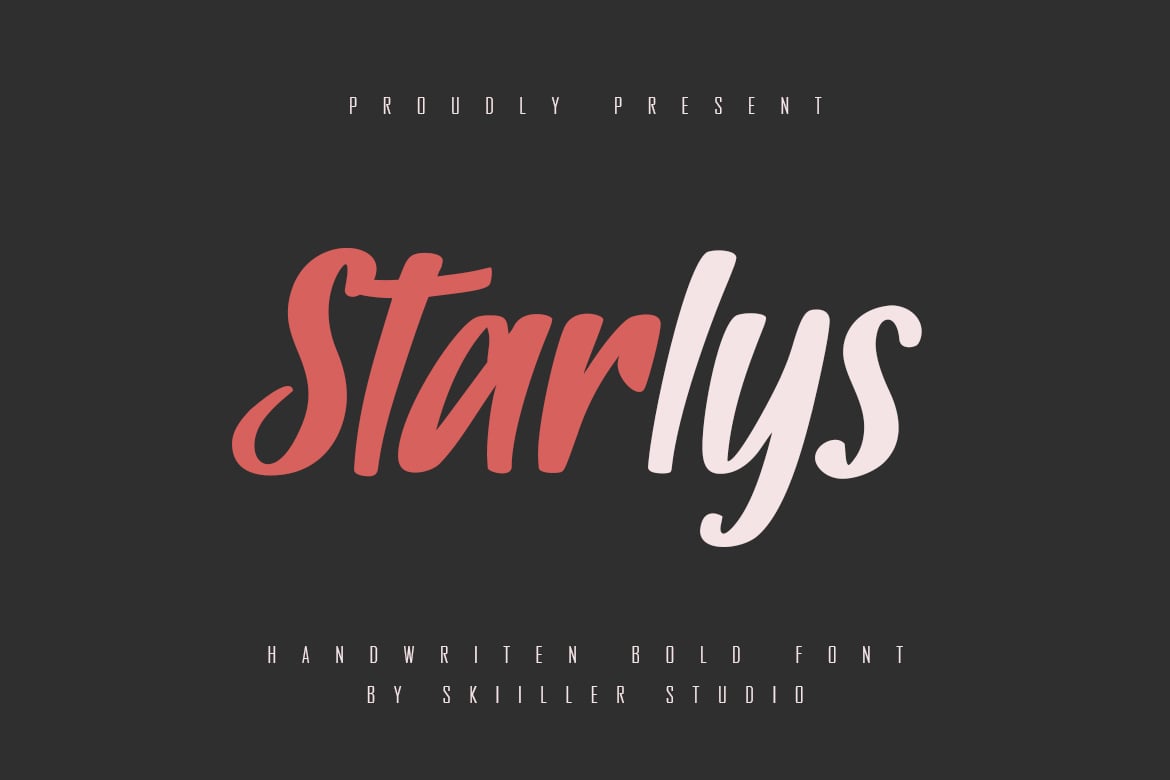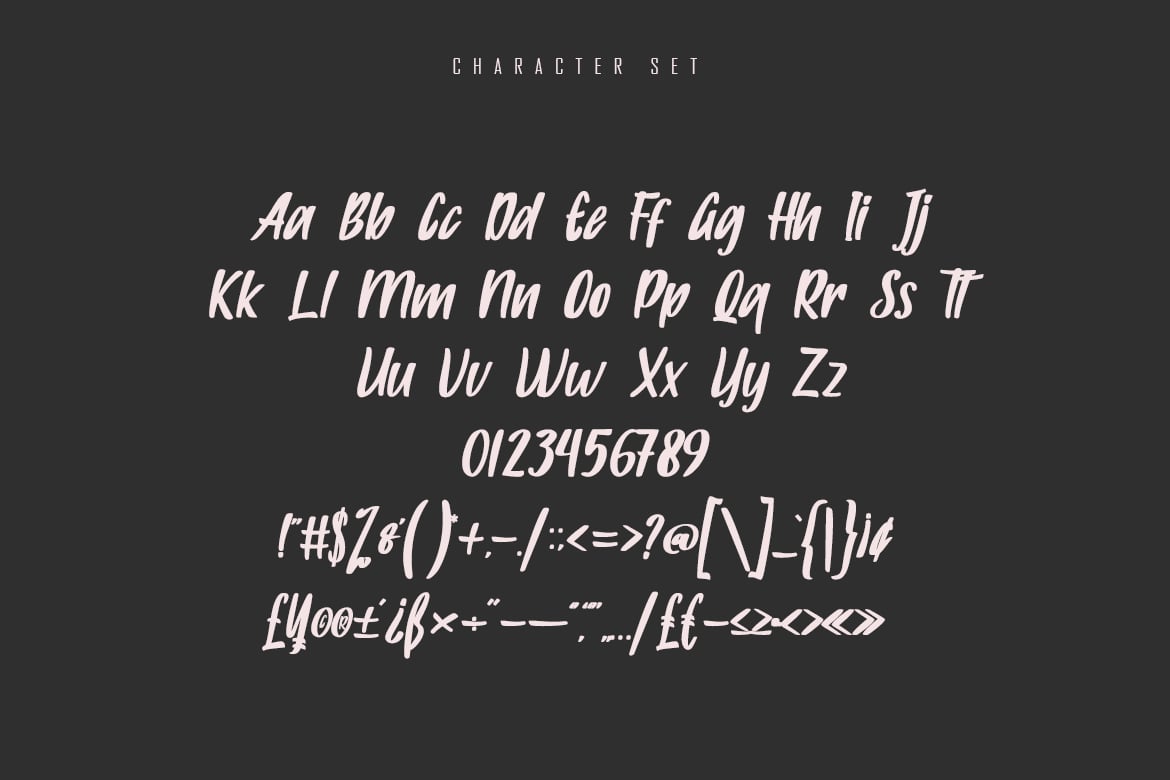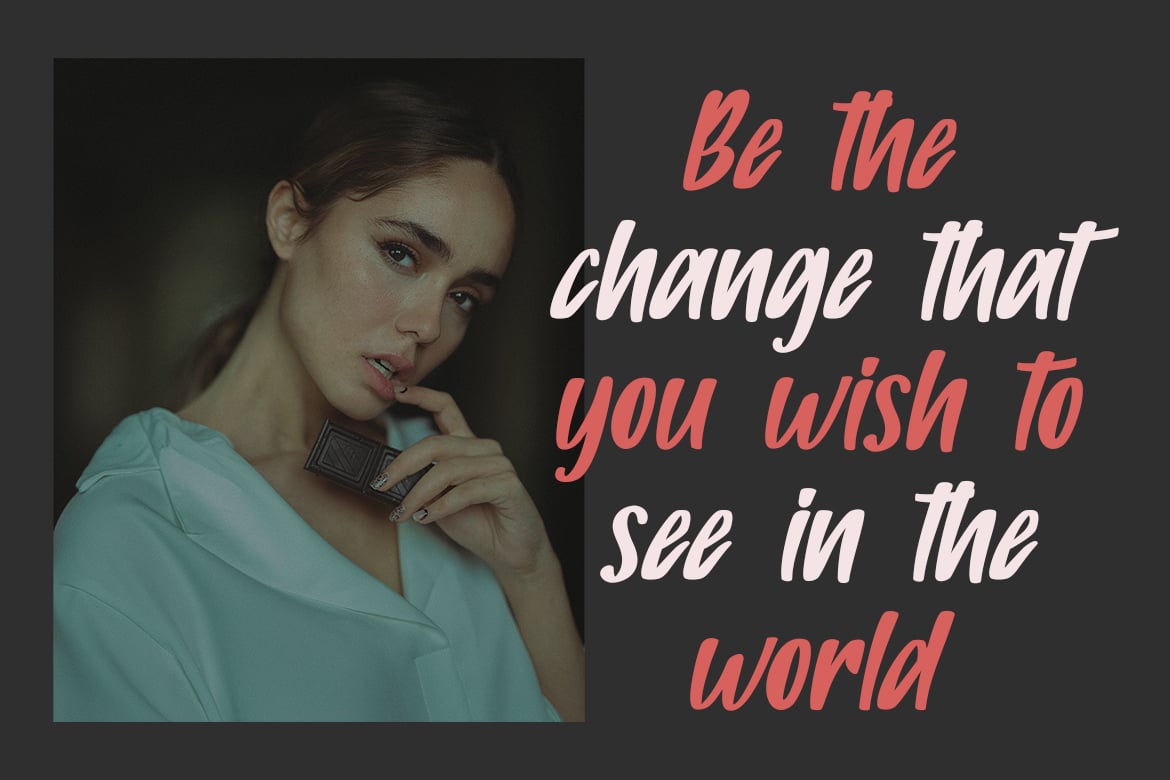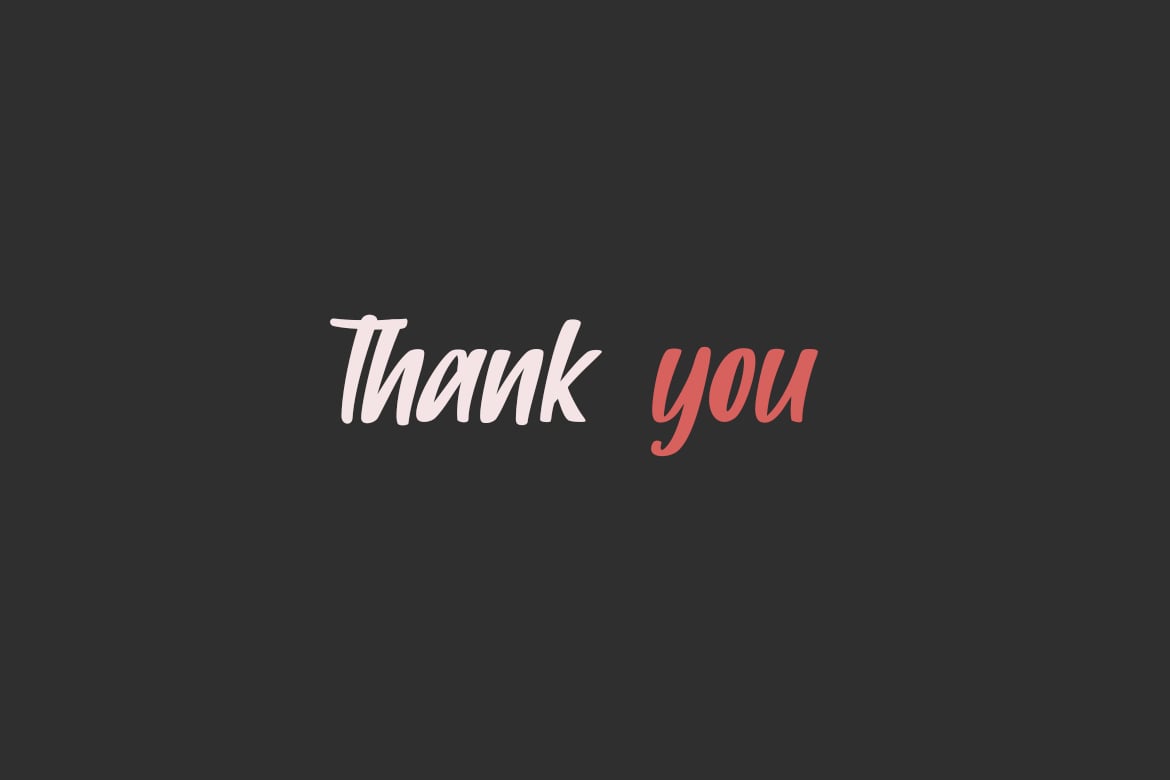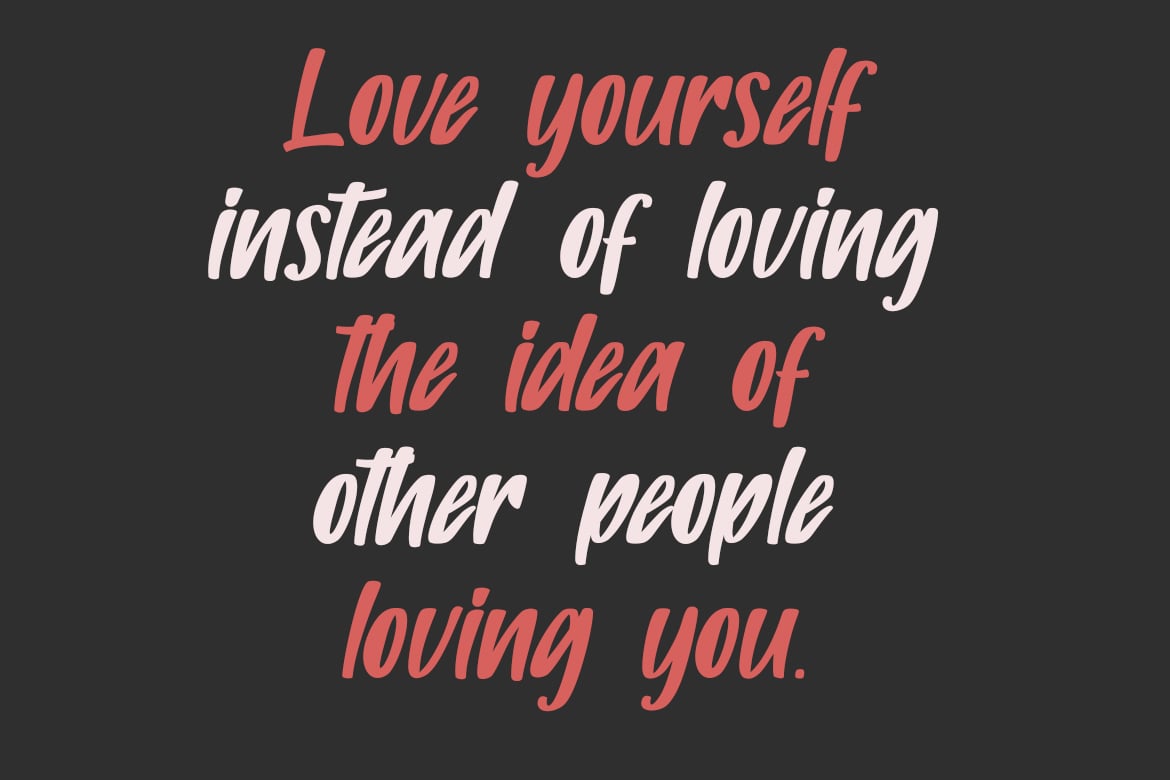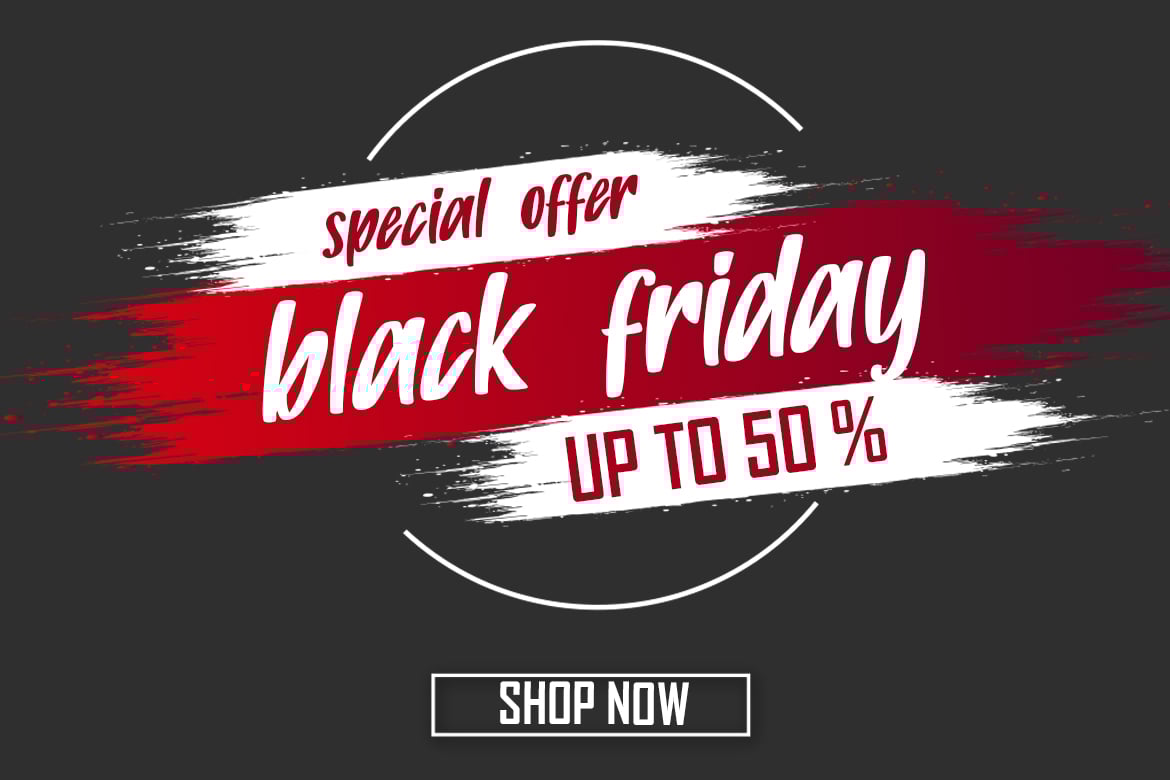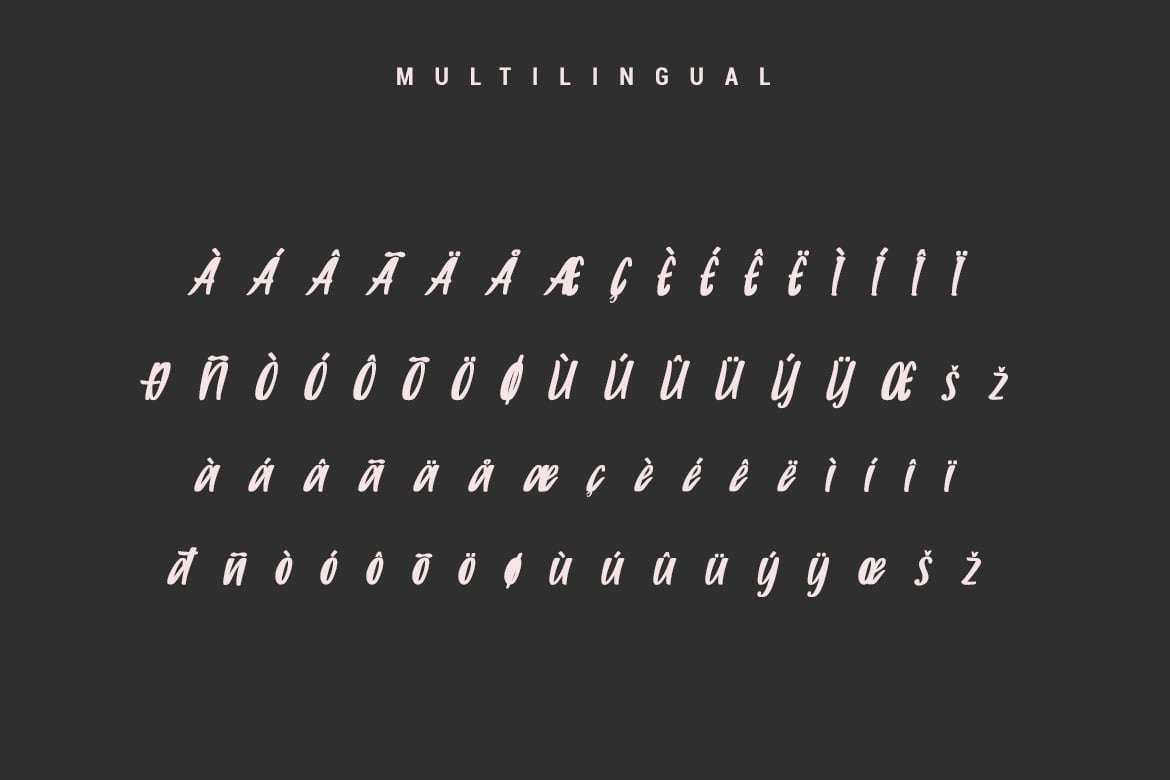
Starlys – Bold Handwritten Font
Starlys Handwritten Bold Font. It looks beautiful on a variety of designs requiring a personalized style, such as wedding invitations, weddings, logos and so on. This font is PUA encoded which means you can access all of the glyphs and swashes with ease!